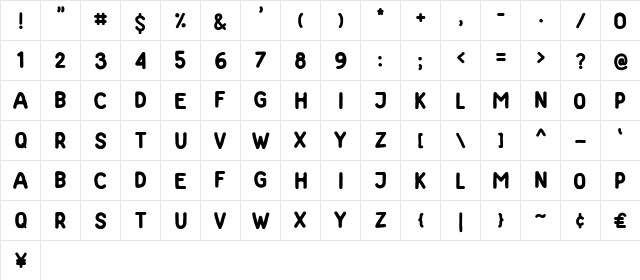
Biggi Ol Regular
Design Context for Biggi Ol Typeface
Biggi Ol offers clean, dependable letterforms without strong stylistic allegiance, making it a practical choice for designers who need flexibility.
Pro Tip: Use Biggi Ol in both headline and body roles to test its range before committing to a single application.